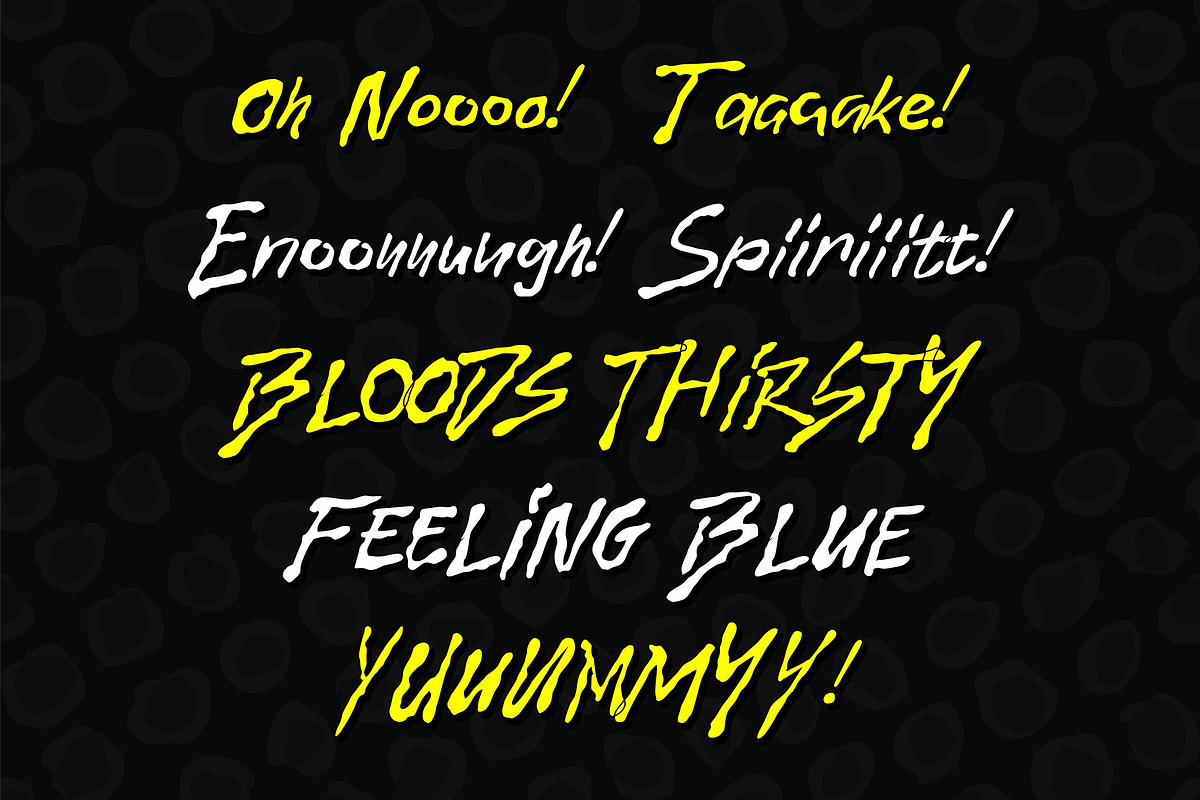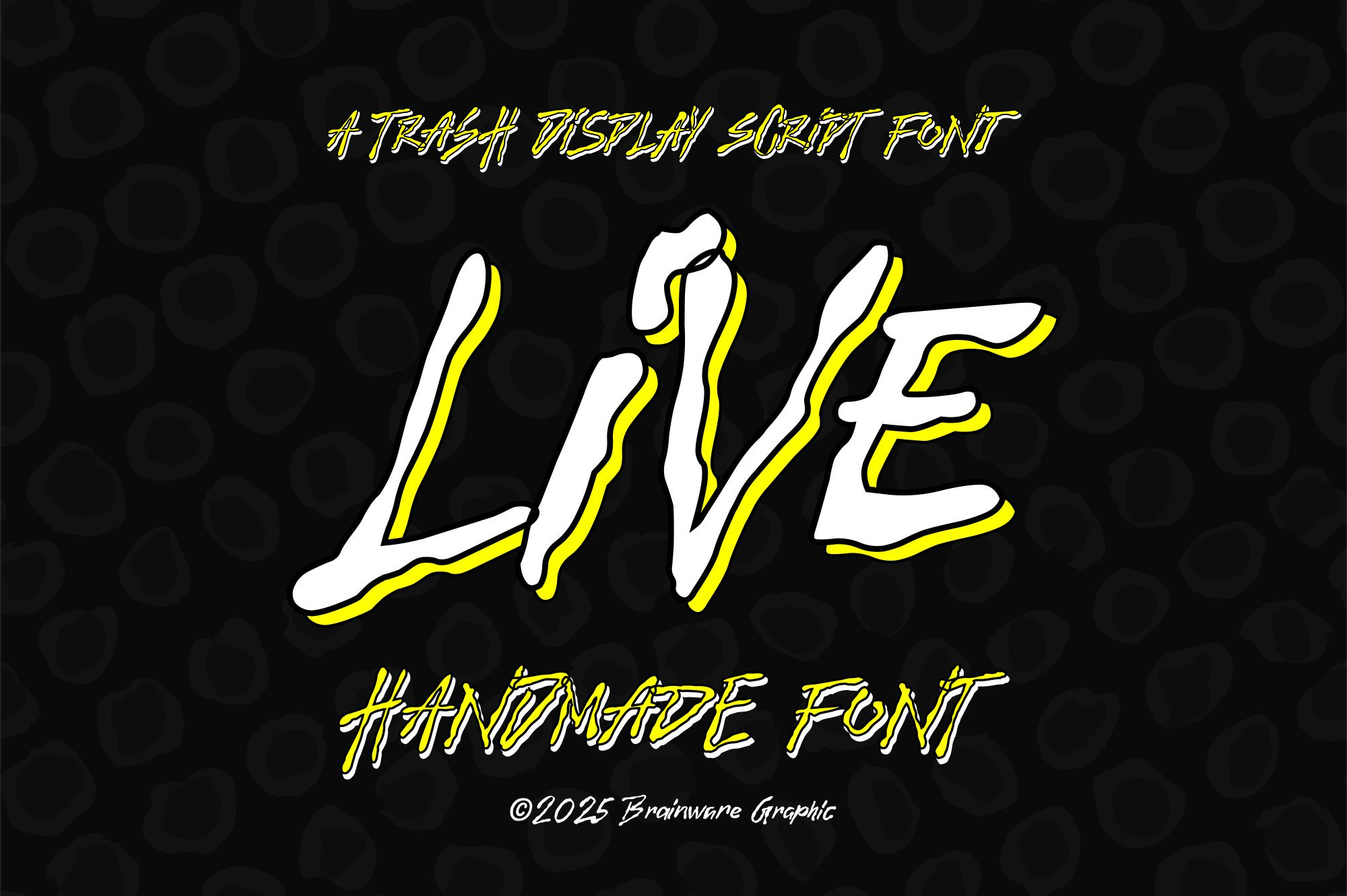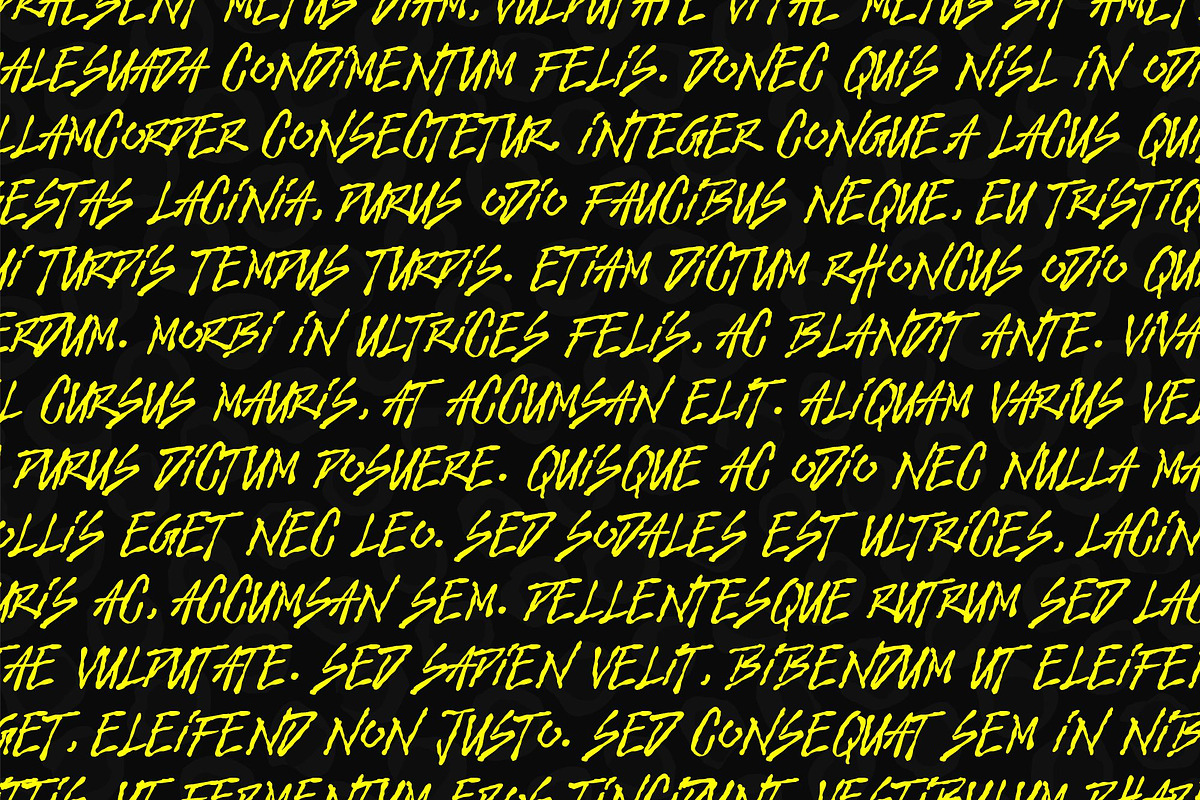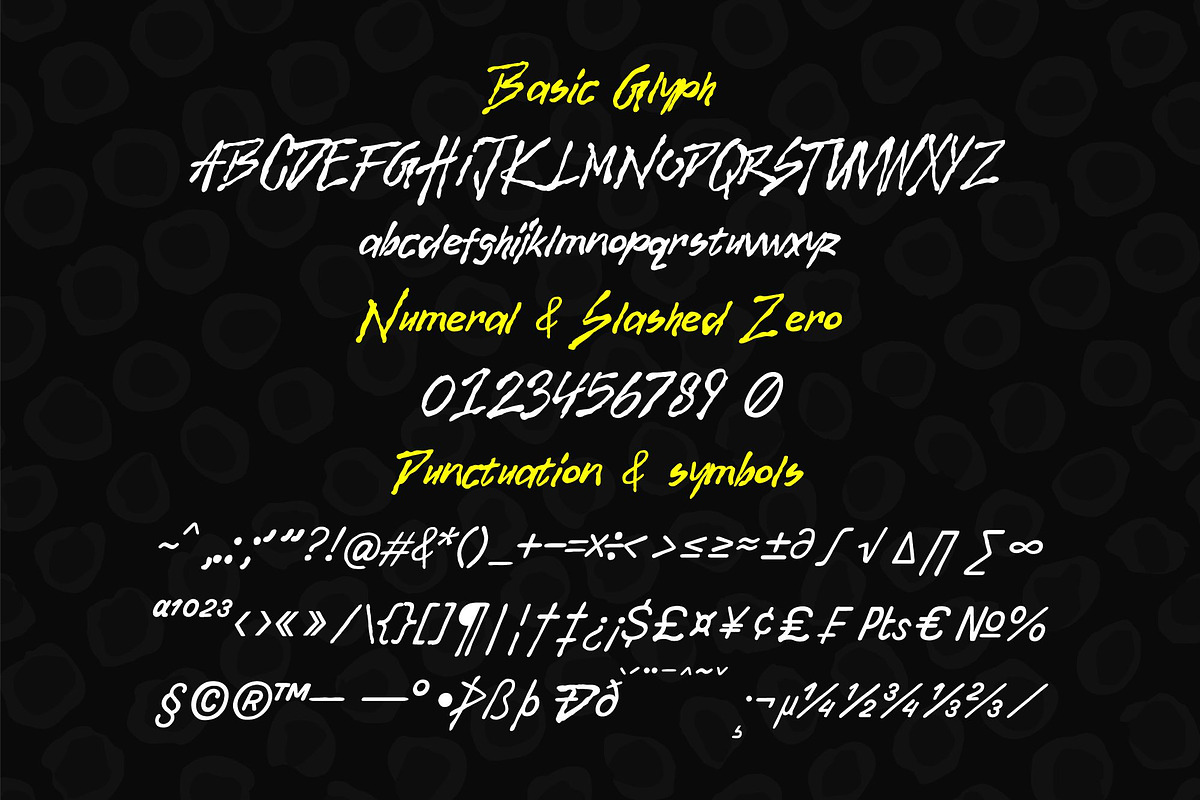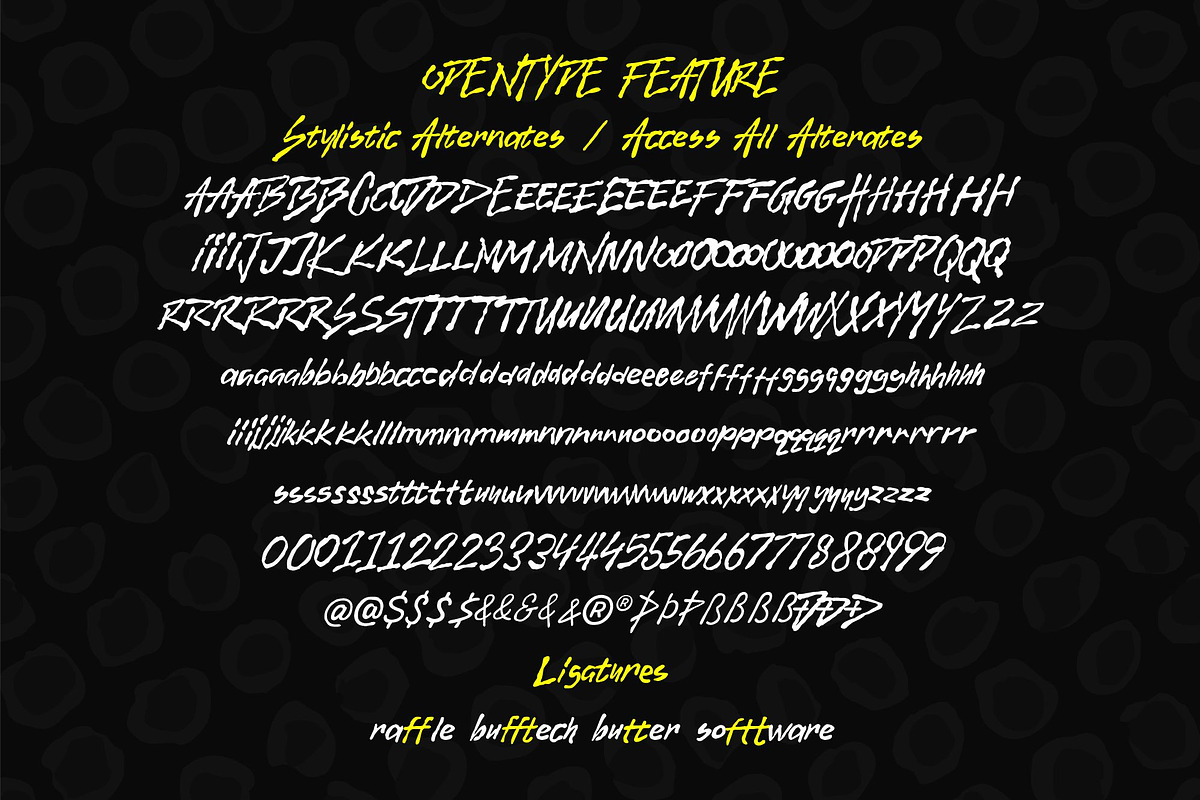
BG Live - a trash display font
Live is a handmade trash display scrit font with a lot of special stylistic alternate in every character. Just use the "access all alternates" or "stylistic alternates" features and easily pick you desired for alternates.